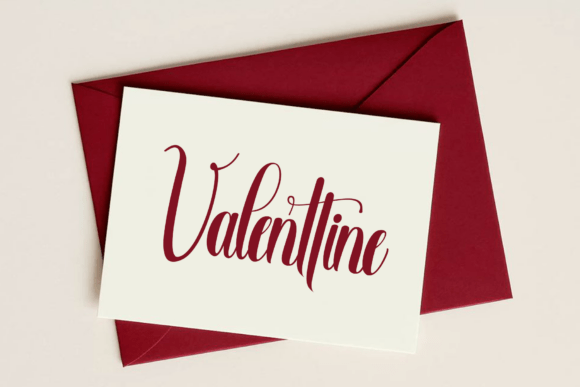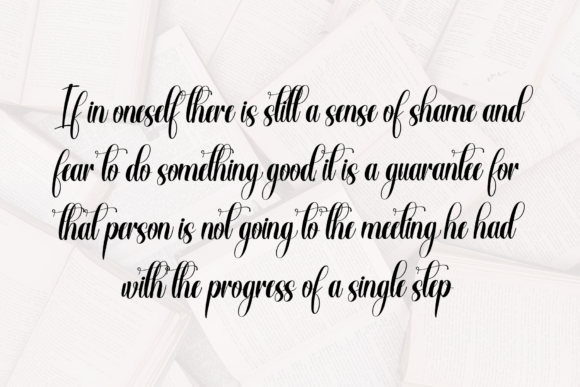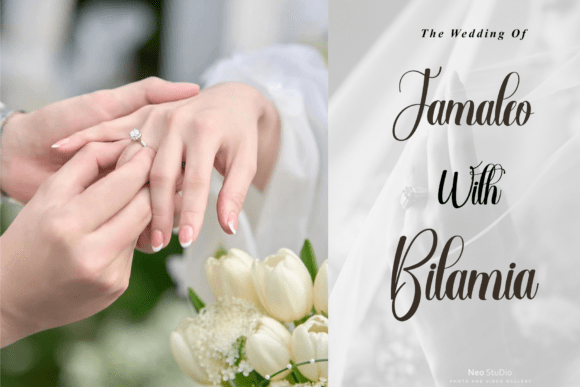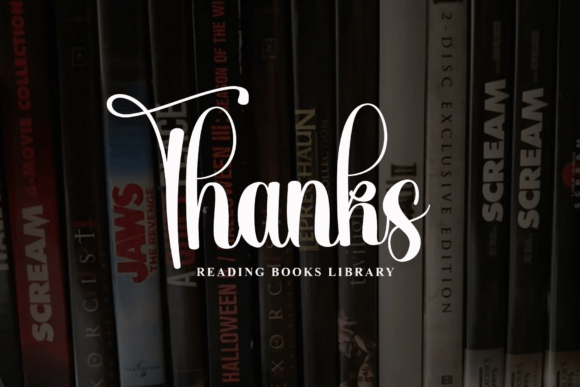
Introducing Handwriting Font: The Timeless Choice for Creative Designs
Handwriting is a lovely and timeless handwritten font that has become a favorite among designers and crafters. Its unique and beautiful touch makes it the best choice for creating eye-catching logos, branding, and quotes that stand out from the crowd. In this article, we’ll explore the features and benefits of Handwriting Font and why it’s a must-have for any creative project.
The Unique Charm of Handwriting Font
Handwriting Font is a carefully crafted font that mimics the natural flow and imperfections of handwritten text. Every letter has a distinct character, with subtle variations in size, shape, and style that give it a personal touch. This font is perfect for designers who want to add a human element to their designs, making them more relatable and engaging.
Features of Handwriting Font
- Unique and Beautiful Touch: Each letter in Handwriting Font has a distinct personality, with subtle imperfections that make it look like it was written by hand.
- Timeless Design: The font’s classic design ensures that it will remain stylish and relevant for years to come, making it a great investment for designers and crafters.
- Versatile: Handwriting Font is suitable for a wide range of creative projects, from logos and branding to quotes and social media graphics.
- Easily Readable: Despite its handwritten nature, Handwriting Font is surprisingly easy to read, making it perfect for body text and captions.
Benefits of Using Handwriting Font
So, why should you choose Handwriting Font for your next project? Here are just a few benefits:
- Adds Personality to Your Design: Handwriting Font brings a personal touch to your designs, making them more relatable and engaging.
- Creates Emotional Connection: The unique and beautiful touch of Handwriting Font helps create an emotional connection with your audience, making your message more impactful.
- Perfect for Branding: Handwriting Font is an excellent choice for branding, as it helps create a distinctive and recognizable visual identity.
Tips for Using Handwriting Font
To get the most out of Handwriting Font, here are a few tips:
- Use it for Headlines and Titles: Handwriting Font is perfect for headlines and titles, where its unique charm can shine.
- Experiment with Colors and Textures: Don’t be afraid to experiment with different colors and textures to add depth and interest to your designs.
- Pair it with Other Fonts: Handwriting Font pairs well with other fonts, so don’t be afraid to combine it with serif or sans-serif fonts for added contrast.
In conclusion, Handwriting Font is a timeless and versatile font that offers a unique and beautiful touch to any creative project. Its features, benefits, and ease of use make it a must-have for designers and crafters who want to add a personal touch to their designs. Whether you’re creating logos, branding, or quotes, Handwriting Font is the perfect choice for making your designs come alive!